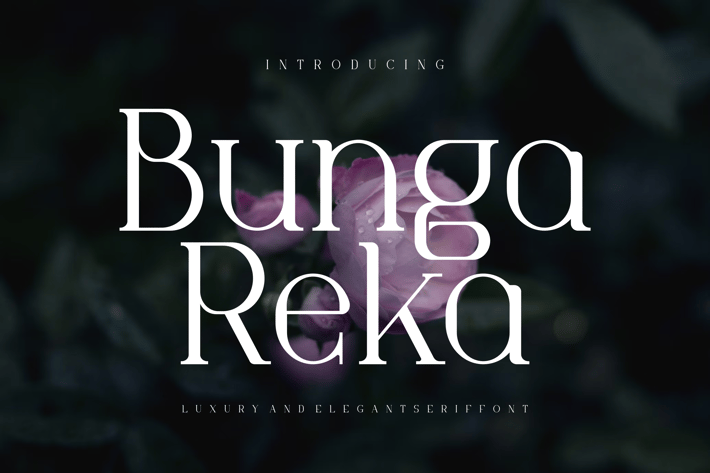
Bunga Reka - Luxury And Elegant Serif Font
Introducing our new product Bunga Reka Font - Luxury And Elegant Serif Font
Bunga Reka Font - Modern Font is a bold and authentic display font. The font is suitable for any branding project like logo,
t-shirt printing, esport, and many more. outstanding in a wide range of contexts.